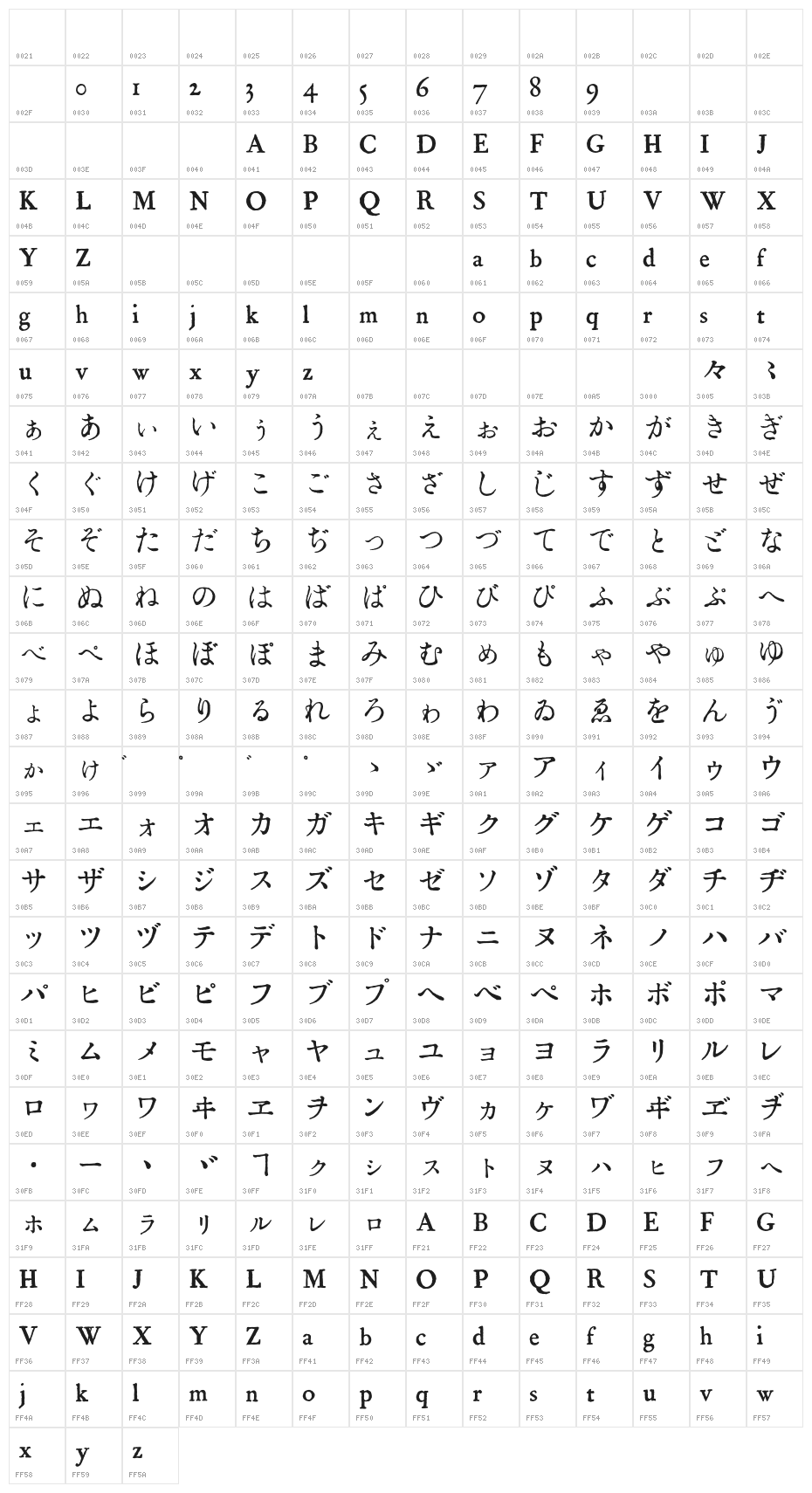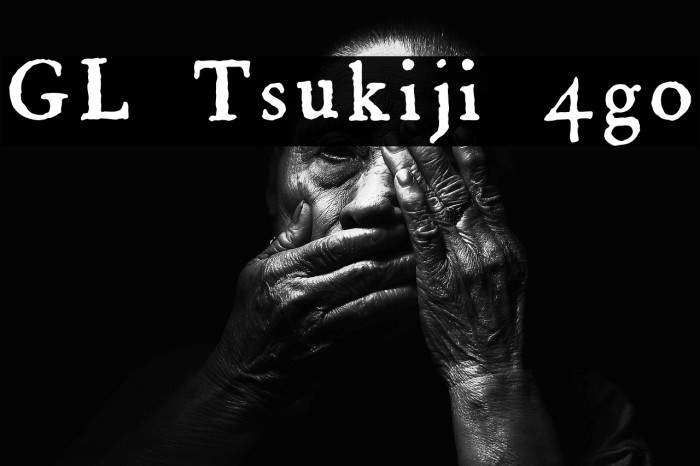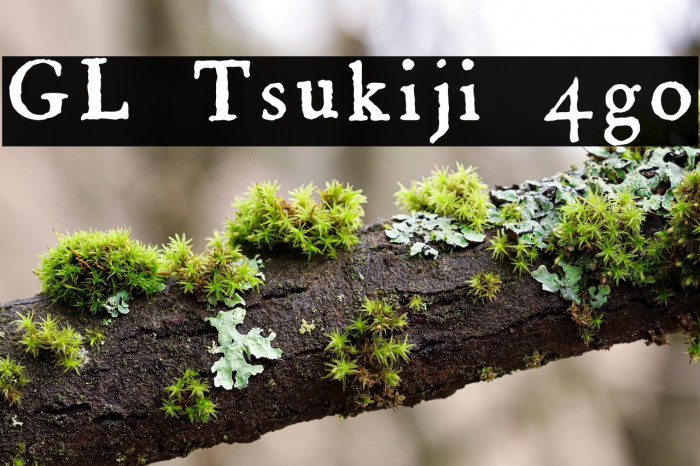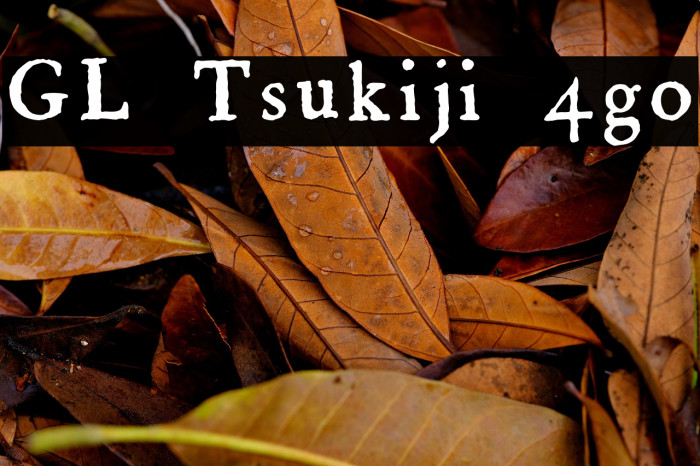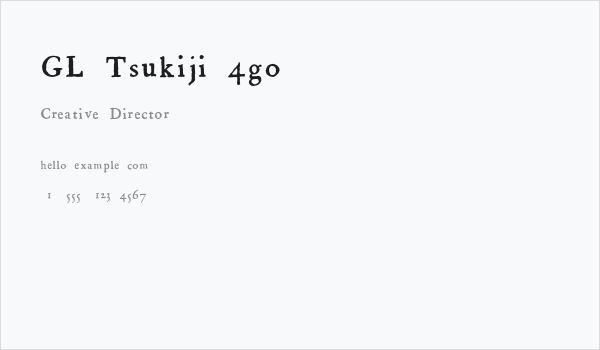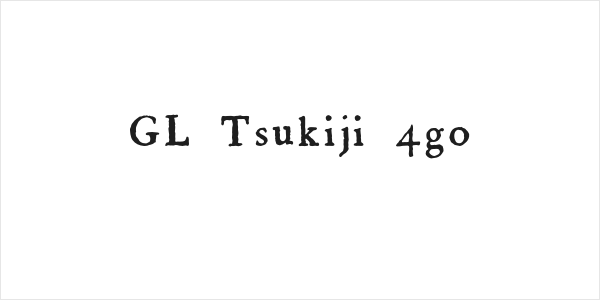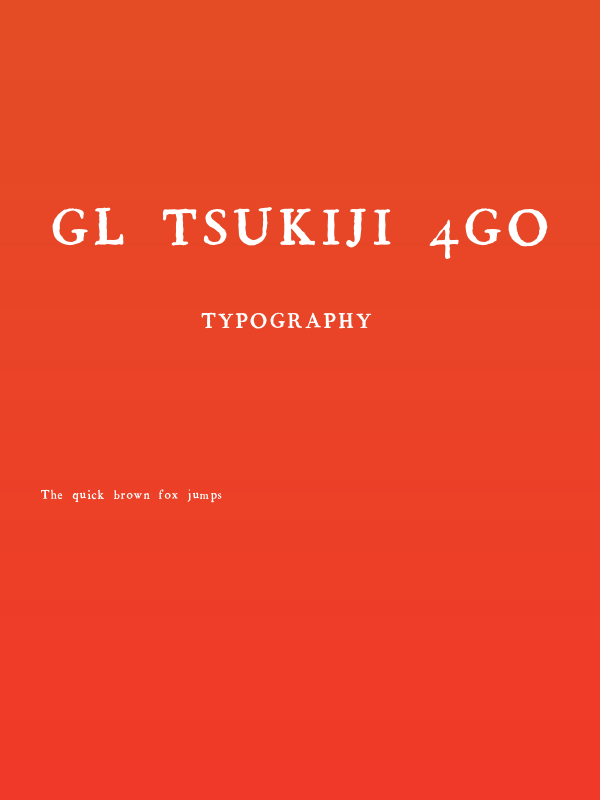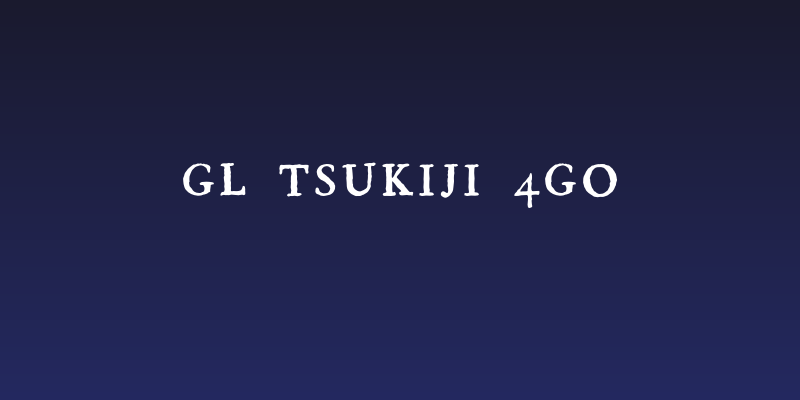
GL-Tsukiji-4go Font
GL-Tsukiji-4go Description
This font features a distinctive, hand-crafted appearance with uneven strokes and a slightly rough texture, reminiscent of traditional woodblock printing. The characters have a classic serif style with a unique, organic feel, giving them a vintage and artisanal quality. The uppercase letters are bold and prominent, while the lowercase letters maintain a consistent style with slightly more variation in stroke width. The numerals are quirky and playful, adding to the font's overall charm. This font's irregularities and imperfections contribute to its character, making it ideal for projects that require a touch of authenticity and historical flair.
Overall StyleVintage
Proposed ProjectsIdeal for historical publications, artisanal product packaging, vintage-themed posters, and branding that requires an authentic, handcrafted look.